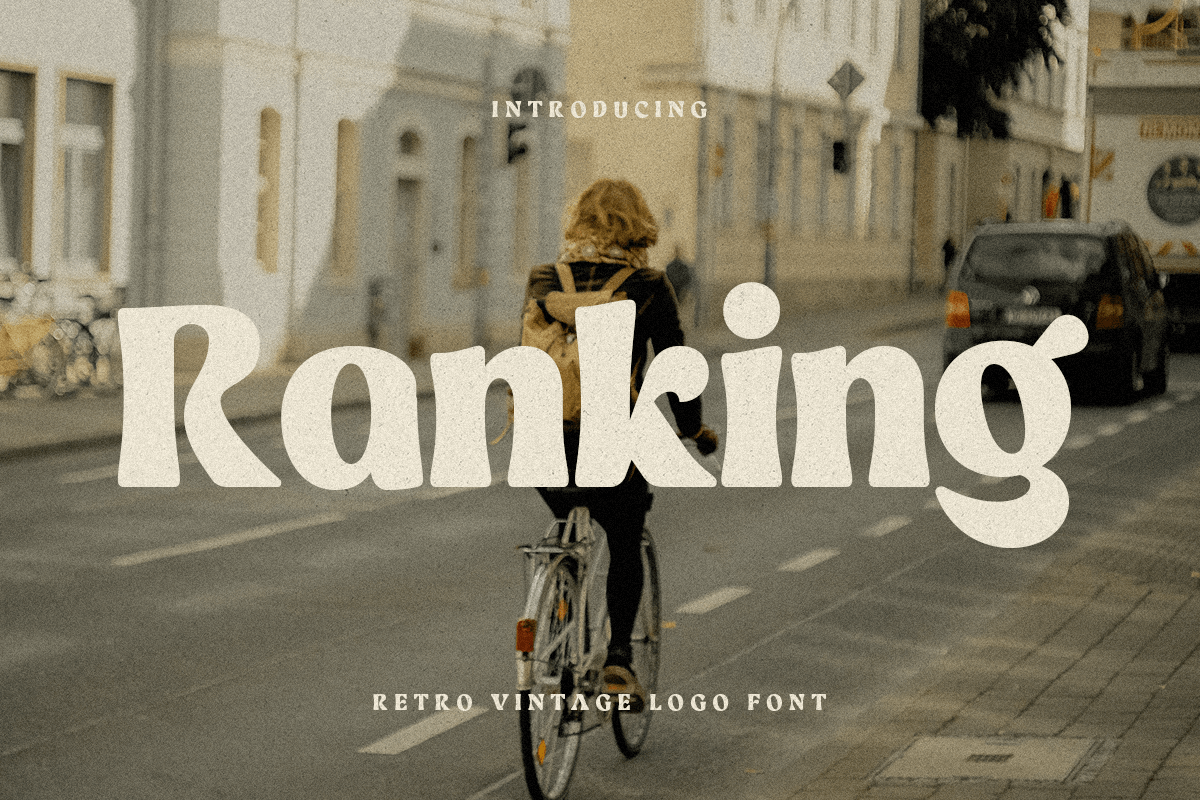
Ranking
-Retro Vintage Logo FontRanking is a retro vintage logo font that brings a timeless charm to any design project. Its nostalgic feel, combined with bold, vintage letterforms, makes it perfect for creating standout logos and branding with a classic edge. Whether you're designing for a retro brand or a modern project with vintage flair, Ranking captures the essence of a bygone era while staying relevant for today's trends.
Inspired by the bold typography of the past, Ranking excels in creating memorable logos, labels, and packaging that evoke a sense of tradition and authenticity. Its unique blend of retro and modern elements gives it versatility across a wide range of applications, from branding to print media.
With Ranking, your designs will capture attention and convey a strong sense of heritage and authenticity, making it ideal for businesses looking to build a lasting brand presence that resonates with their audience.